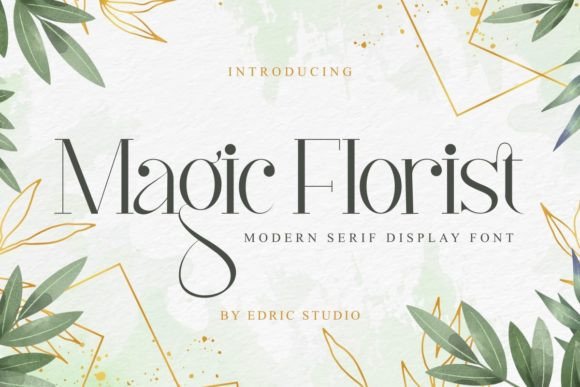
Unleash the Magic: Embark on an Enchanted Typographic Journey with Magic Florist Font
In a world where words come alive, there exists a font that captivates hearts and ignites imaginations – Magic Florist Font. This exquisite serif display font, meticulously crafted by EdricStudio, is a masterpiece that blends elegance, sophistication, and a touch of luxury, leaving an unforgettable impression on your creative endeavors.
Picture this: a world where your words dance across the page, each letter a delicate petal unfurling in a symphony of visual delight. Magic Florist Font is a font for those who seek to enchant and inspire, those who dare to dream beyond the ordinary and embrace the extraordinary. With its graceful curves and refined lines, this font will elevate your designs to new heights.
Imagine the possibilities: brand logos that exude an air of timeless elegance, custom designs that transport you to a realm of enchantment, labels that whisper tales of hidden treasures, printed materials that captivate and enthrall. Every project you undertake with Magic Florist Font will be imbued with a touch of magic, a sprinkle of wonder that will leave your audience spellbound.